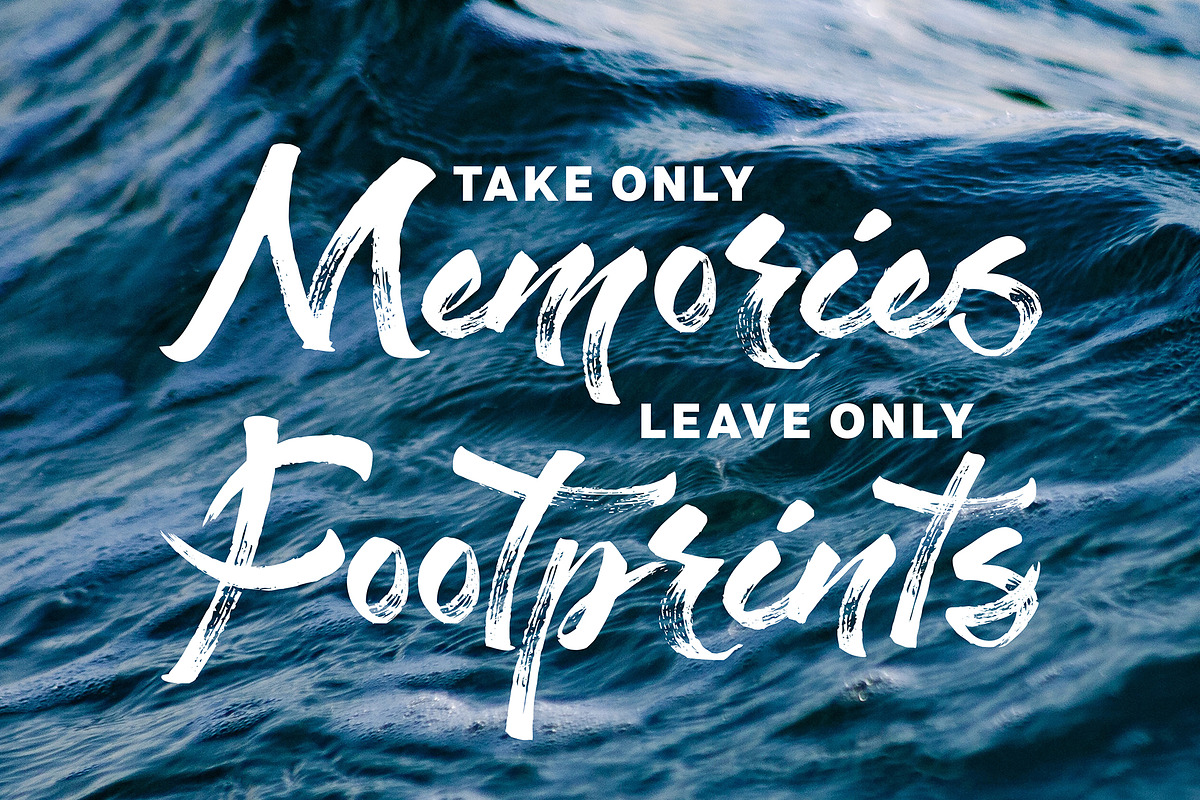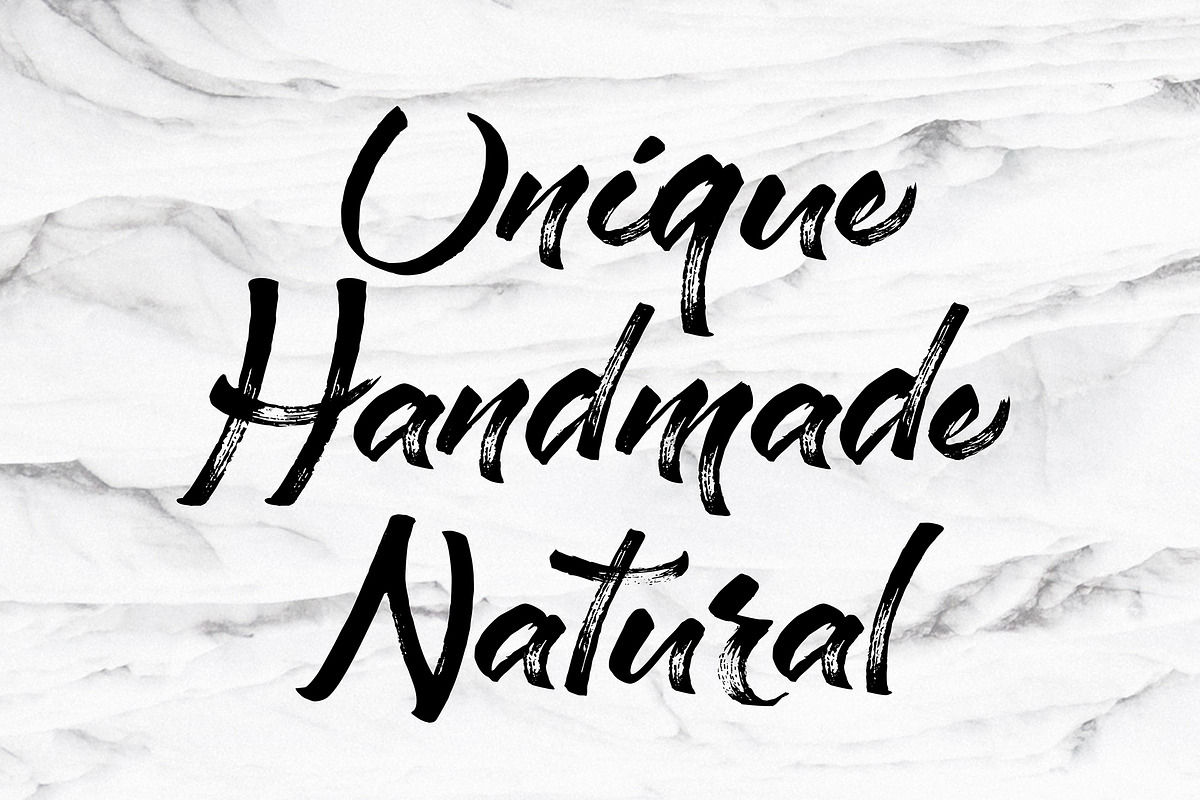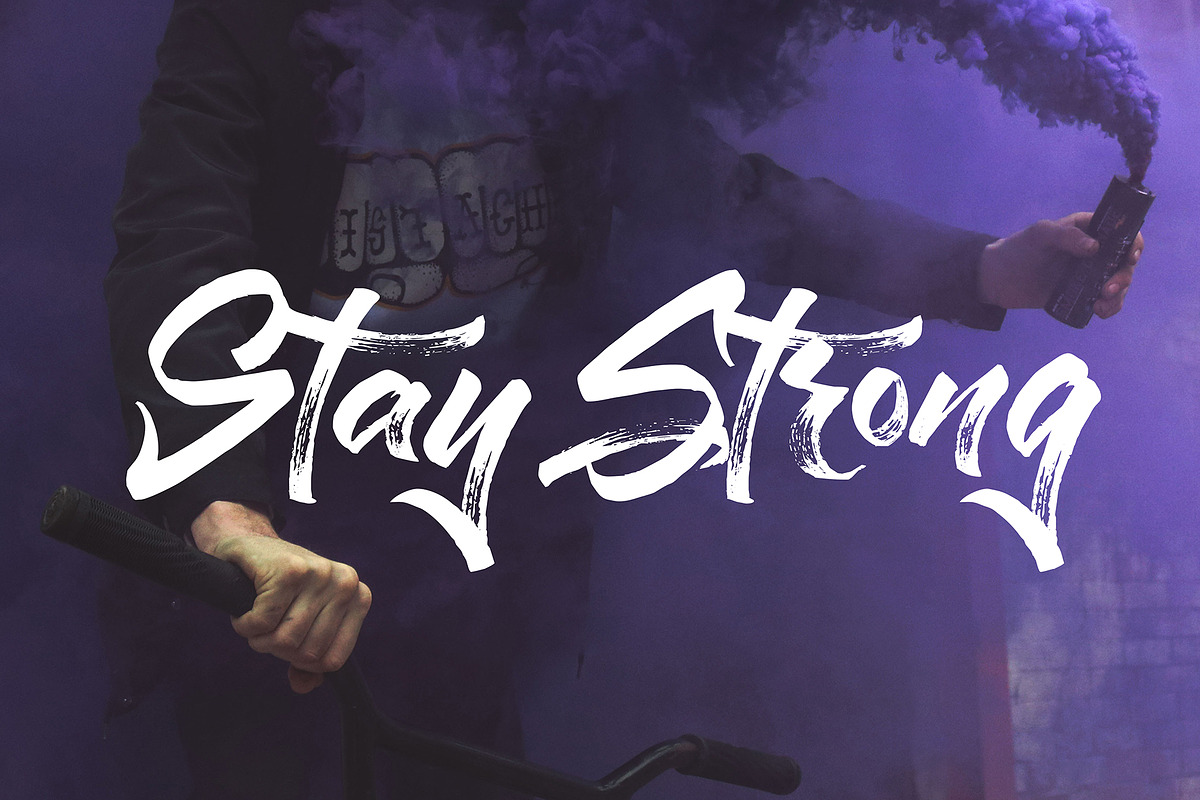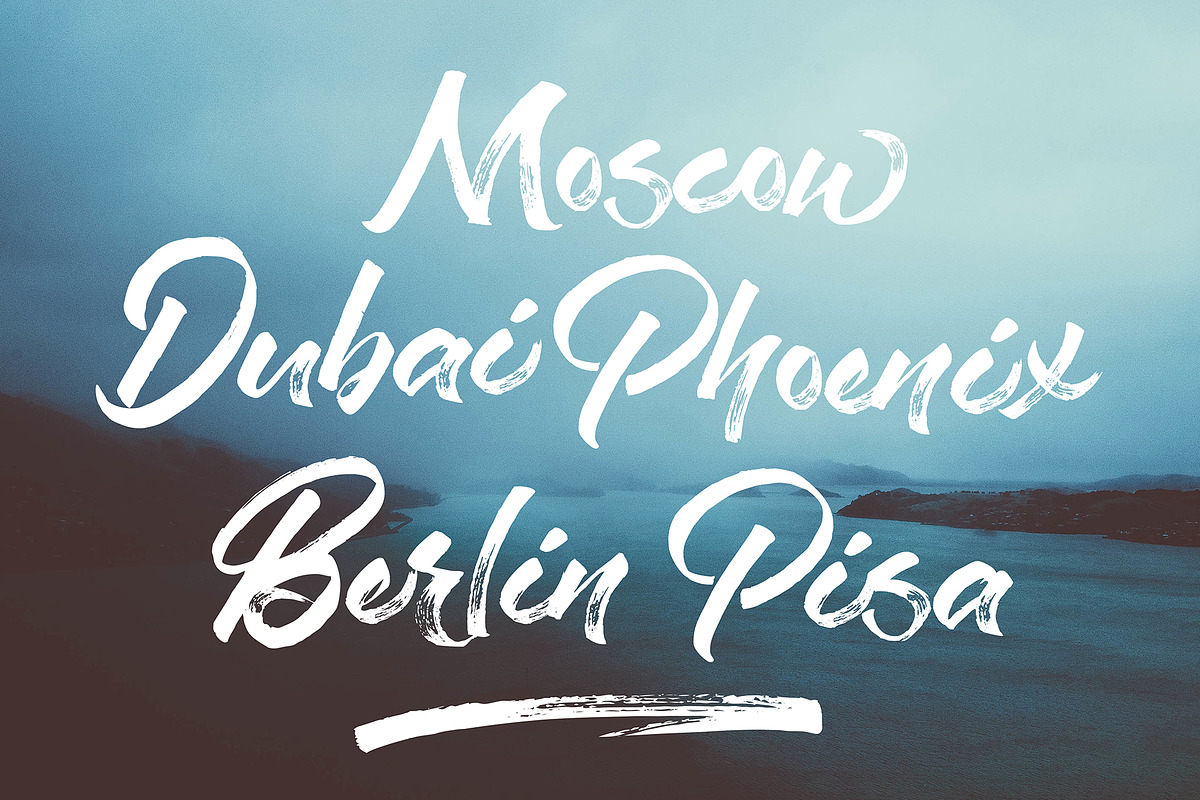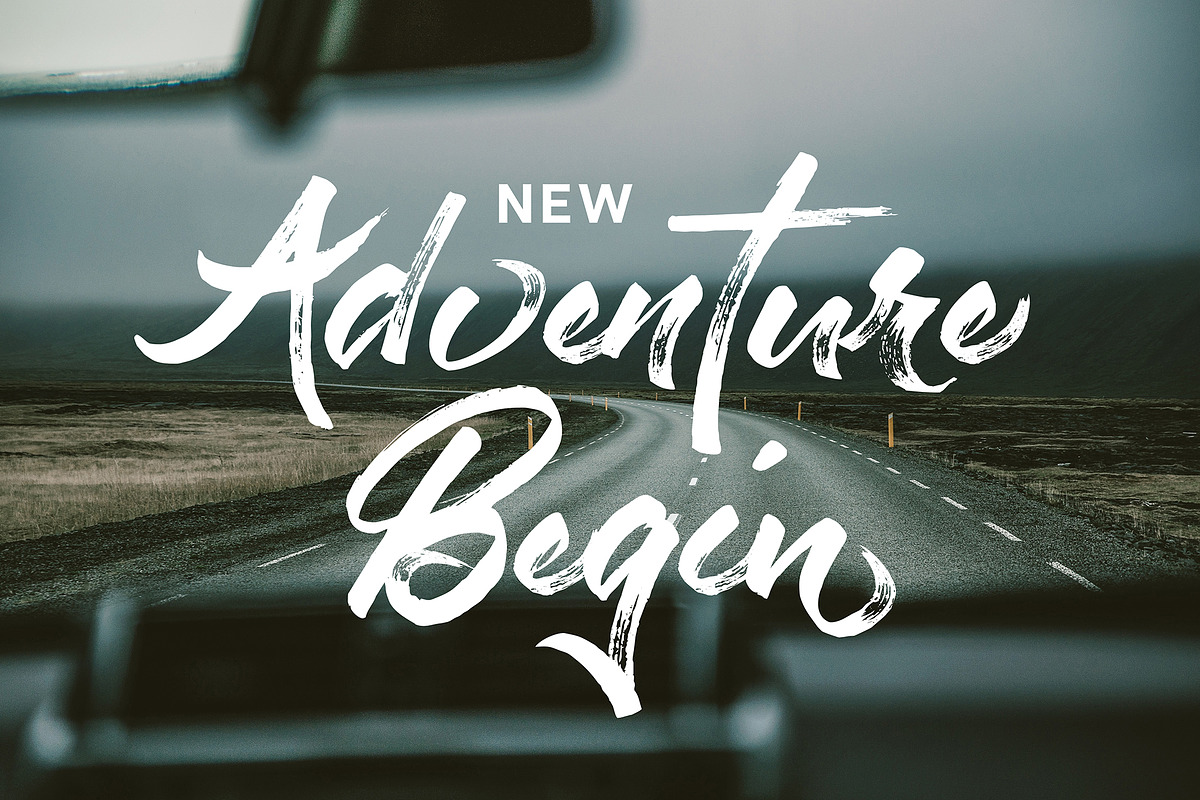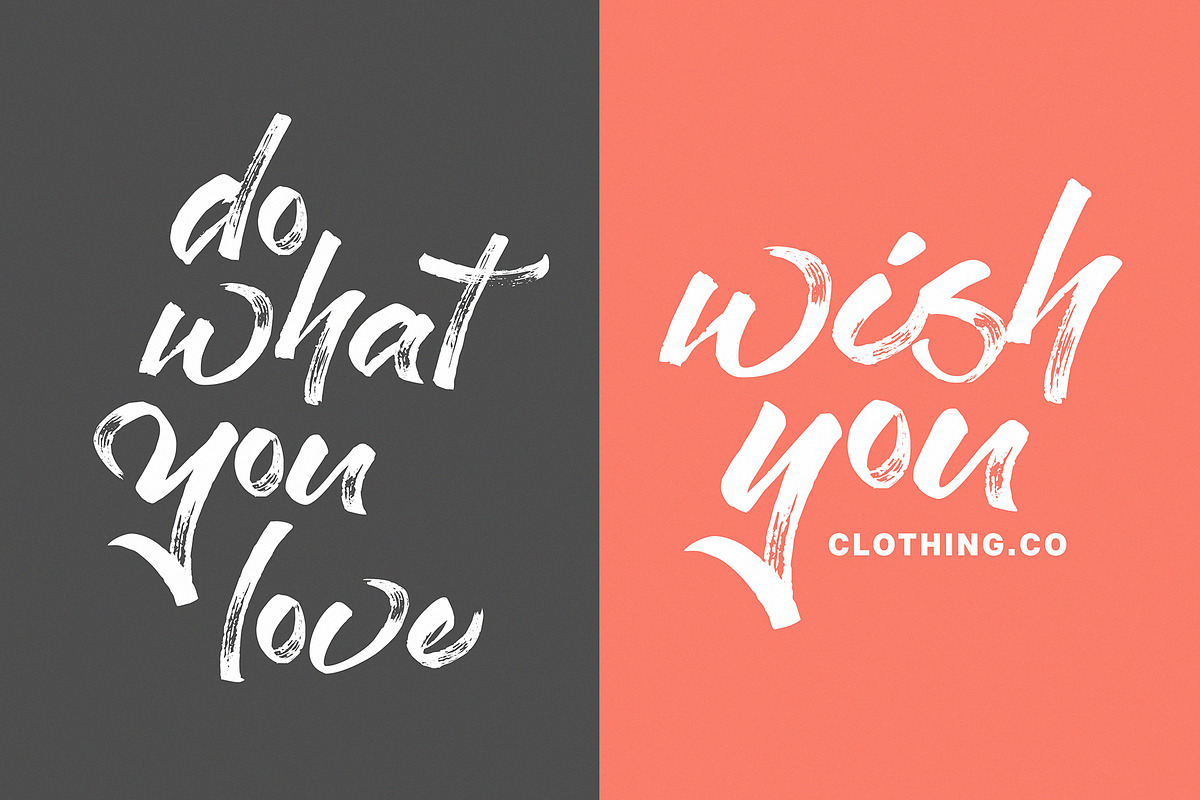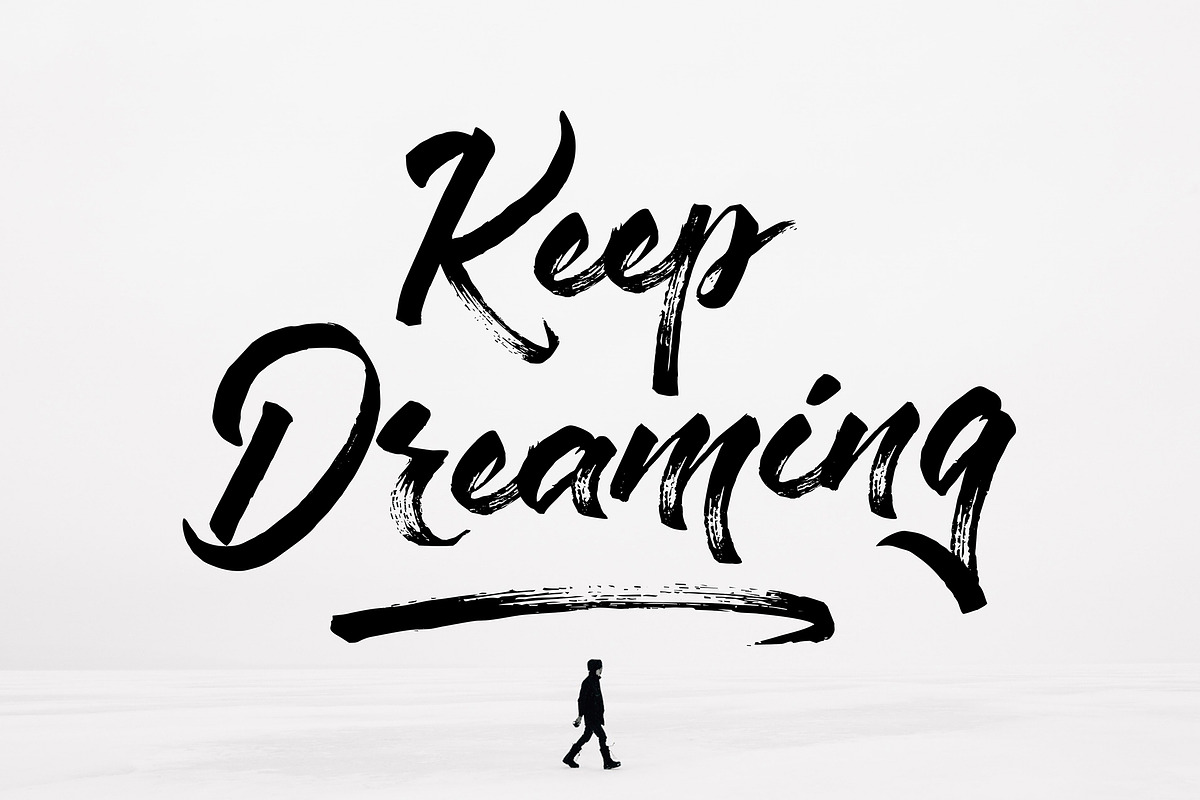
Staychill Brush Font
Staychill is unique textured brush font, contemporary approach to design, handmade natural with an irregular baseline. Suitable for use in title design. Such as apparel, invitations, books tittle, stationery design, quotes, branding, logos, greeting card, t-shirt, packaging design, poster and more. Staychill includes a complete set of uppercase and lowercase letters, as well as multi-language support, numbers, punctuation, alternates and ligatures.
Staychill Brush Font by Solidtype fits naturally into Branding, posters, packaging, typography.